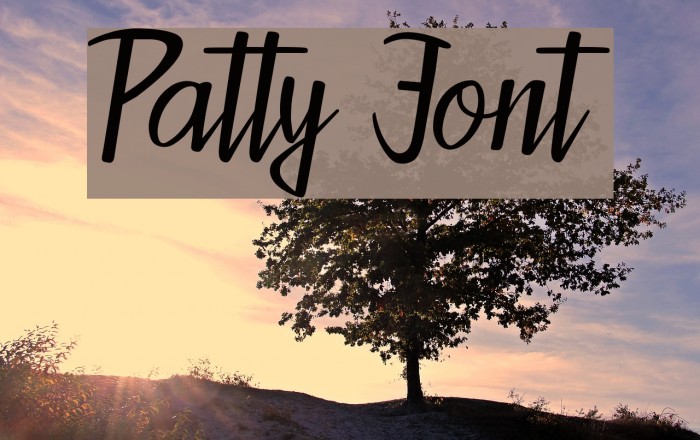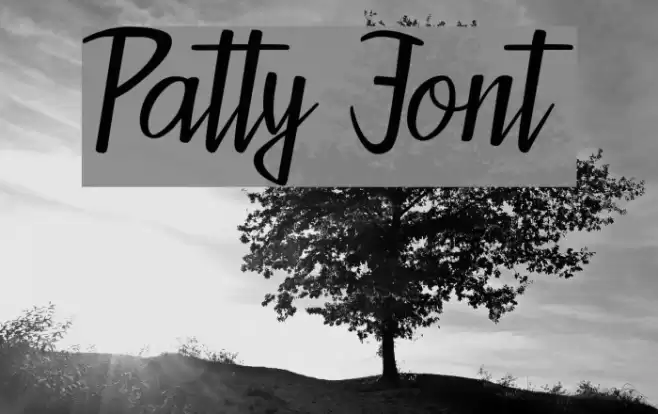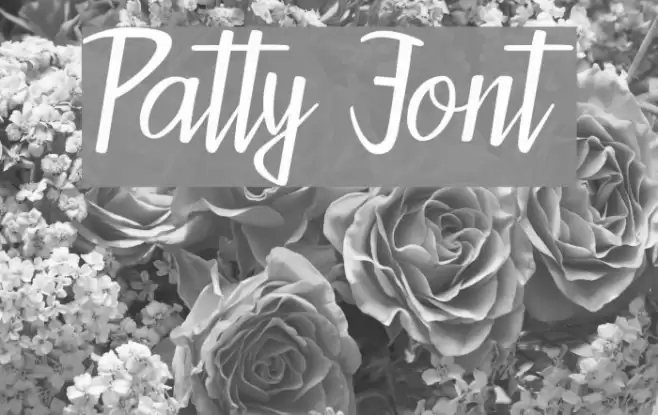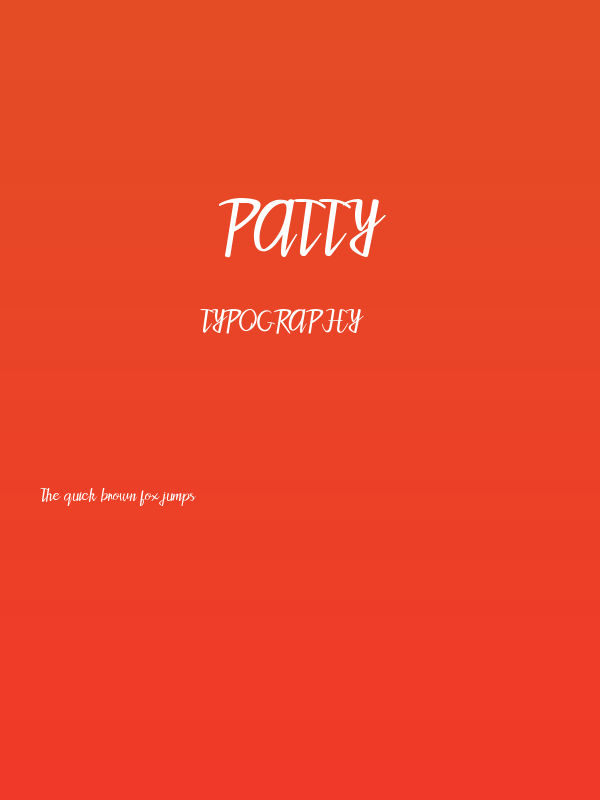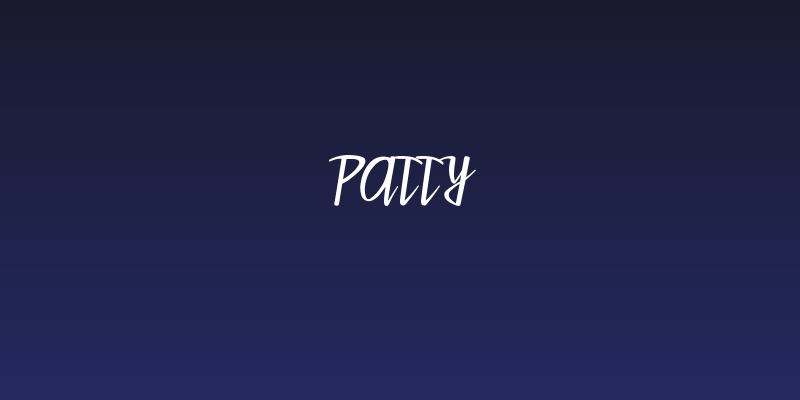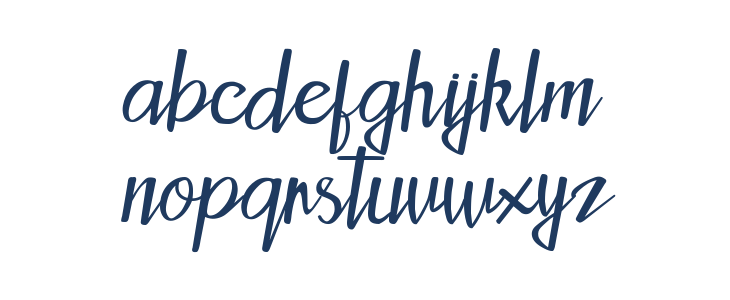
Patty Font
Patty Description
This font features a dynamic and flowing script style, characterized by its elegant and smooth curves. The uppercase letters are tall and slightly slanted, giving a sense of movement and grace. The lowercase letters maintain a consistent flow, with some characters featuring distinctive loops and swashes that add a touch of sophistication. The numerals are clear and legible, with a slight slant that complements the overall style. This font exudes a sense of elegance and is perfect for projects that require a personal and artistic touch.
| Proposed Projects | Ideal for wedding invitations, greeting cards, branding, and elegant logos. |